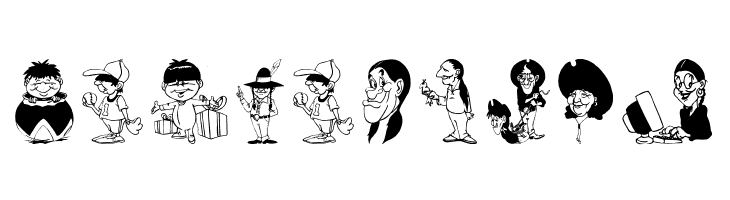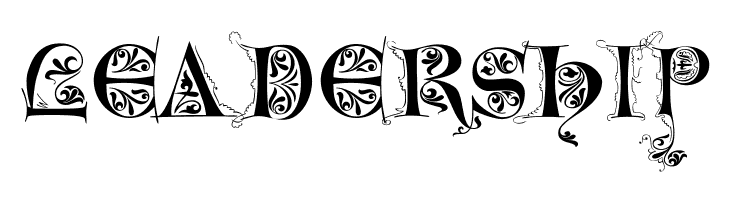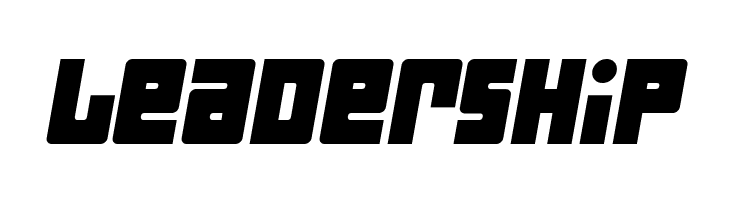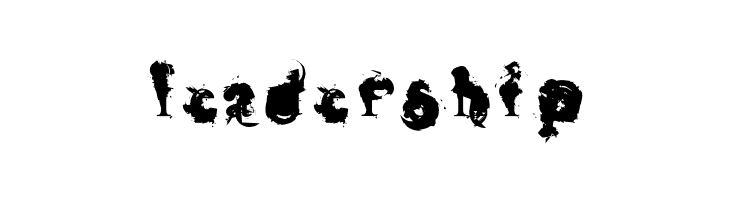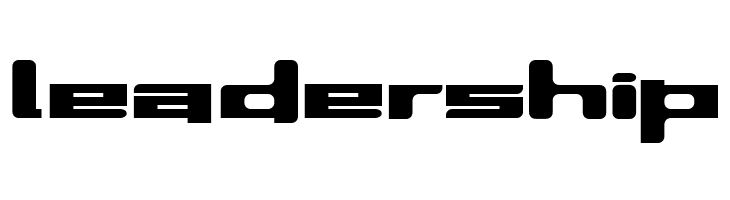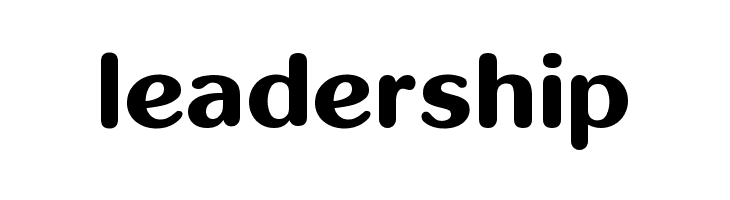
A whimsical, decorative font with vine-like embellishments.
A whimsical, decorative font with organic, vine-like embellishments.
A whimsical and decorative font with unique artistic elements in each character.
A decorative and artistic font with intricate designs within circular boundaries.
A decorative and whimsical font with characters enclosed in circular discs, ideal for playful designs.
A classic blackletter font with ornate, gothic-inspired letterforms.
A bold blackletter font with ornate Gothic styling and high contrast.
A clean, monospaced font ideal for coding and technical documents.
A modern, monospaced font with excellent readability and uniform spacing.
A clean, modern monospaced typeface ideal for coding and technical documentation.
A bold, monospaced typeface with a clean and modern design.
A bold, italic, monospaced font with medium contrast and modern style.
A modern, monospaced italic font with medium contrast and clean lines.
A symbol font with icons inside crosshair targets.
An ornate, decorative font with intricate floral embellishments, ideal for vintage-themed projects.
Cartoonish, illustrated font with each character as a unique caricature.
A bold, industrial font with geometric, blocky characters.
A bold, industrial font with geometric shapes and a blocky appearance.
A bold, italicized font with an industrial and futuristic style.
A bold, geometric, italic font with an industrial and modern flair.
A bold collection of industrial-themed icons with strong lines and detailed designs.
A playful, handwritten-style font with consistent strokes and a casual vibe.
A bold, playful font with a hand-drawn, informal style.
A dynamic, italicized font with smooth, fluid strokes and a modern feel.
A bold, dynamic script font with expressive, cursive letterforms.
A bold, decorative font with leaf-like infestations on each character.
Illustrative dingbat font with gardening and outdoor motifs.
A modern sans-serif font with rounded edges and uniform strokes, offering excellent readability.
A bold, rounded font with smooth curves and a modern, approachable style.
A bold, italic font with smooth curves and a modern, sleek appearance.
A modern, italic sans-serif font with smooth curves and balanced spacing.
A bold, distressed font with an ink-splattered, grunge aesthetic.